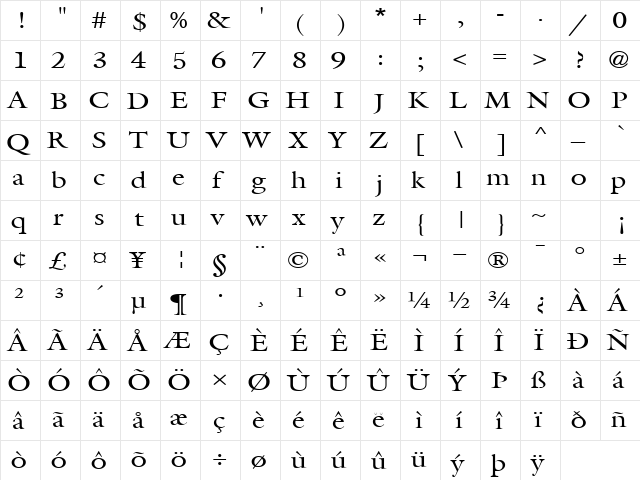
Coverdale-Extended Normal
Design Context for Coverdale-Extended Typeface
Coverdale-Extended takes a measured approach to typography — its balanced proportions and neutral character make it a reliable workhorse for both digital and print work.